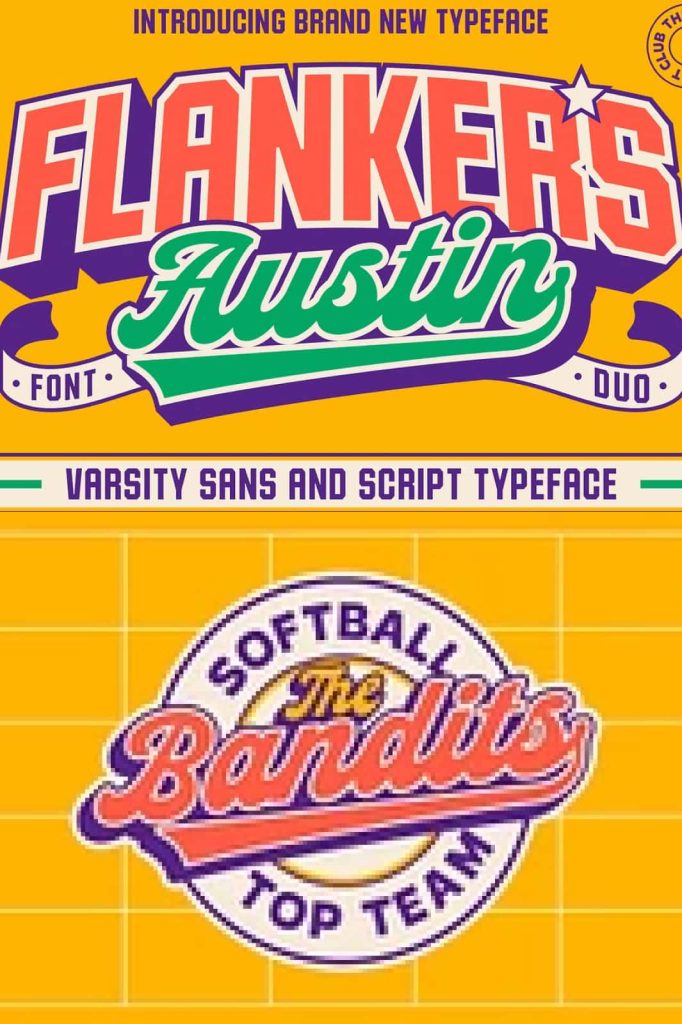
Flankers Austin is a retro varsity font duo that contains a Script and Sans Serif. This font duo is perfect for baseball or football logos! The script font has flowing strokes and decorative elements, making it ideal for headlines and logos